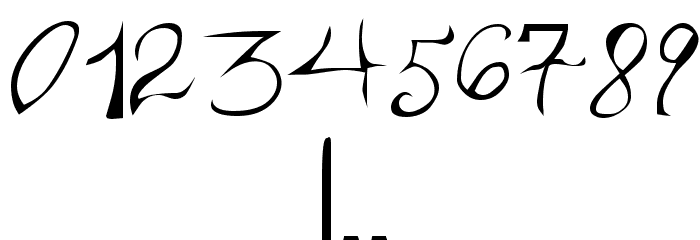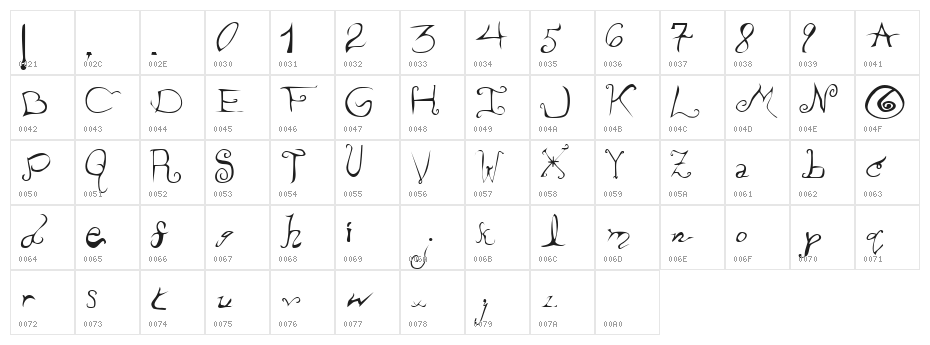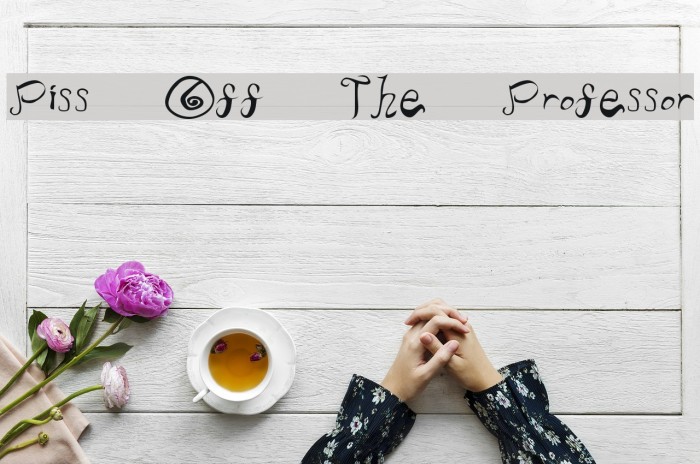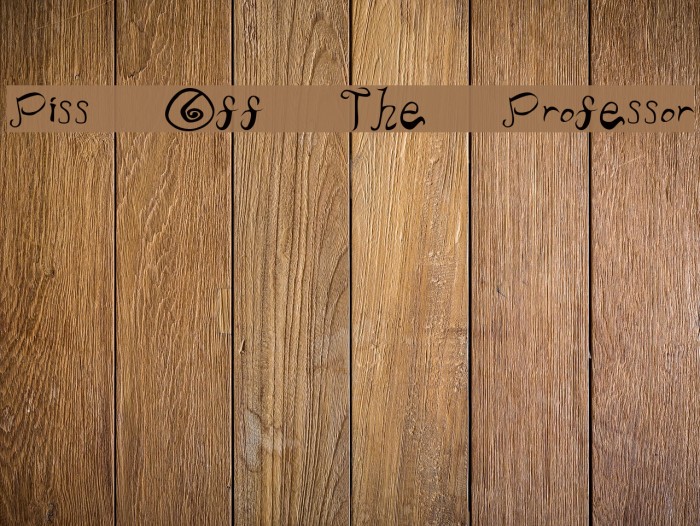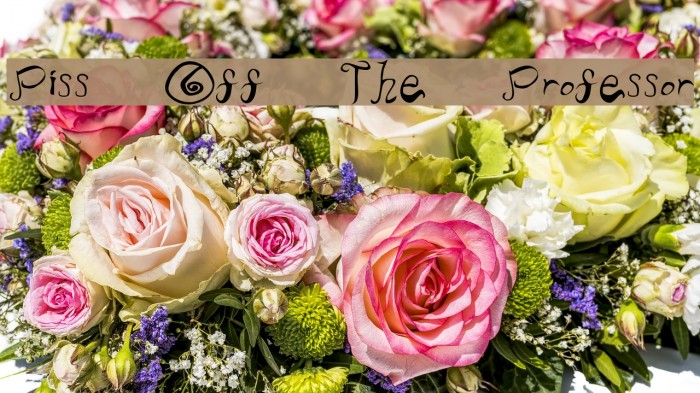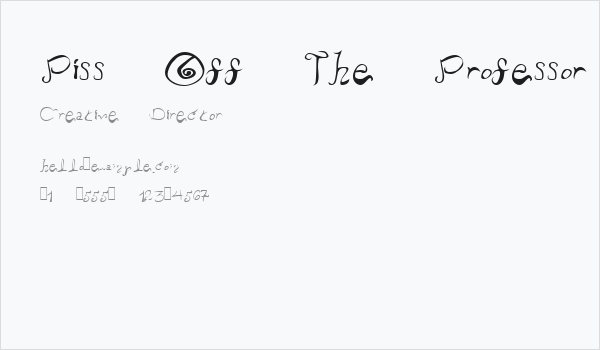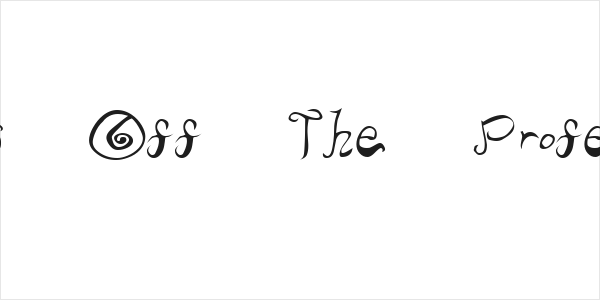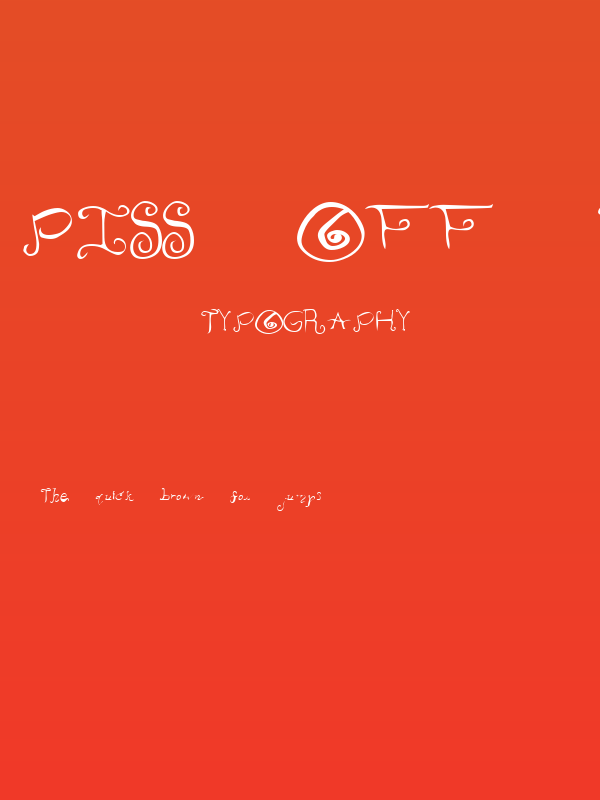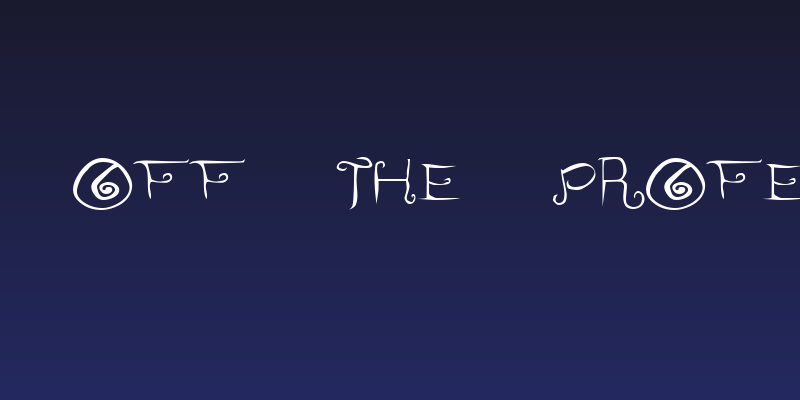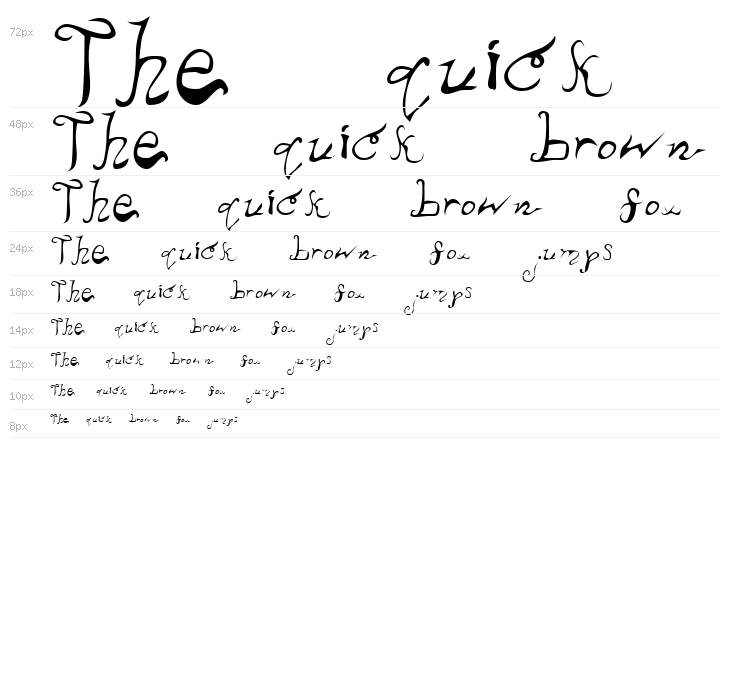
Piss Off The Professor Font
Piss Off The Professor Description
This font features a whimsical and playful design with a unique blend of curves and swirls. The uppercase letters exhibit a variety of decorative elements, such as loops and spirals, giving each character a distinct personality. The lowercase letters maintain a similar playful style, with some characters having exaggerated tails or flourishes. The numbers are equally stylized, with varying stroke thickness and creative shapes. Special characters like the question mark and ampersand continue the theme with intricate details. Overall, this font exudes a sense of fun and creativity, making it ideal for projects that require a touch of whimsy.
| Proposed Projects | Ideal for children's books, playful branding, creative posters, and whimsical invitations. |